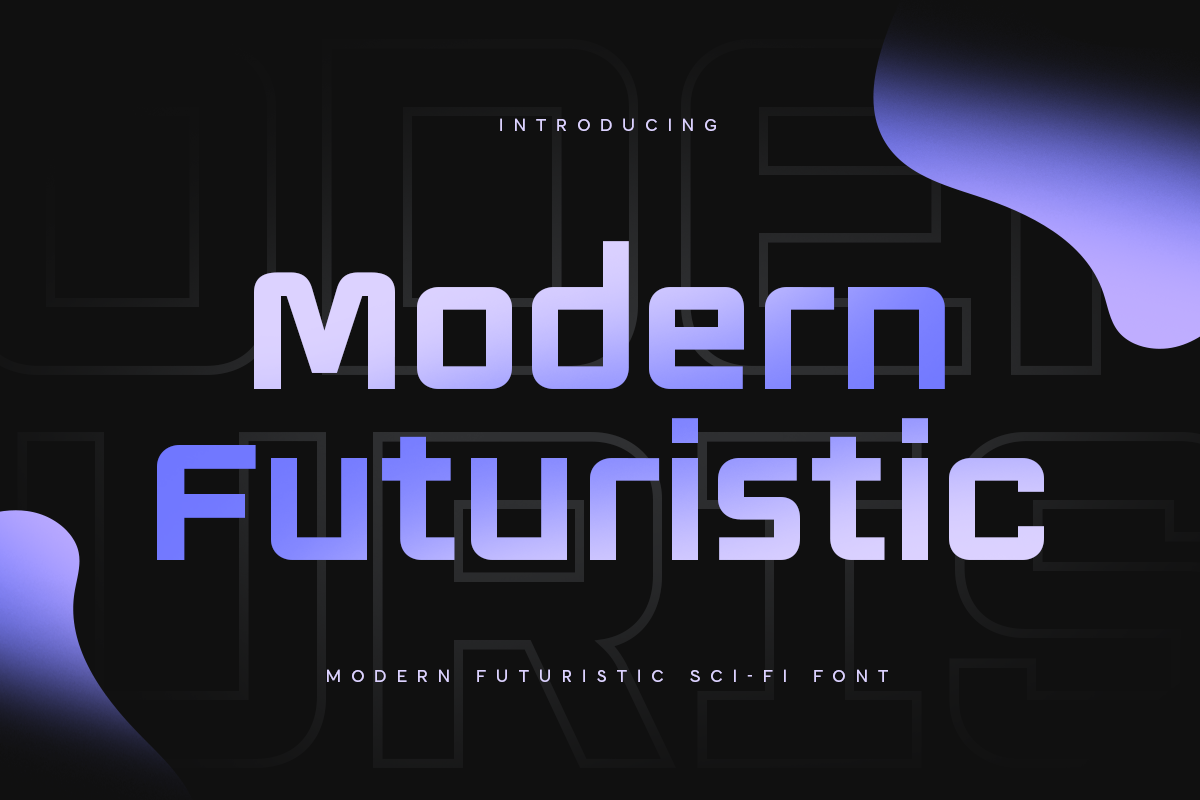
Modern Futuristic - Scifi Font
Transform your designs with this bold futuristic sci-fi typeface crafted for modern technology and sport themes. Modern Futuristic delivers the perfect blend of contemporary style and sci-fi aesthetics, specifically designed to make your typography stand out. This bold sans serif font brings a distinctly modern feel that's ideal for headlines and key visual elements in technology, sports, action, and sci-fi projects. The typeface features futuristic character designs that offer creative alternat...